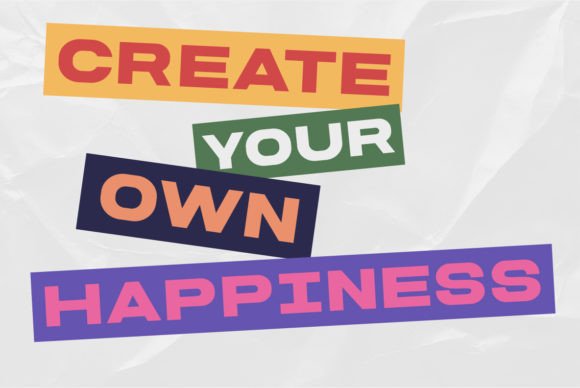
Introducing GRVTRN Font: The Epitome of Modern Sans Serif Design
In the ever-evolving world of typography, the GRVTRN font has emerged as a beacon of contemporary design, perfectly encapsulating the essence of simplicity with a modern edge. This extended sans serif font is not just a typeface; it’s a statement—a bold declaration of minimalist appeal with a wide, thick, and clean aesthetic that is set to dominate the design trends of 2024.
The Design Philosophy Behind GRVTRN
GRVTRN’s design philosophy revolves around the concept of simplicity and modernity. In an era where design trends are increasingly moving towards minimalism, this font stands out by offering a clean and straightforward style that speaks volumes. Its large, wide, and thick letterforms are meticulously crafted to ensure that the font is not only visually appealing but also highly legible across various mediums.
Key Features of GRVTRN Font
- Extended Sans Serif: GRVTRN boasts an extended sans serif design, making it perfect for headlines, titles, and any application where a bold statement is required.
- Clean and Straightforward Style: The font’s clean lines and straightforward style ensure that it can be used in a variety of contexts, from digital interfaces to print materials.
- Large, Wide, and Thick Letterforms: The distinctive letterforms of GRVTRN are designed to grab attention without compromising on elegance.
- High Legibility: Despite its bold appearance, GRVTRN maintains high legibility, making it suitable for use in both body text and headings.
GRVTRN in 2024 Design Trends
The year 2024 is expected to witness a surge in design trends that favor minimalism, sustainability, and digital-first approaches. GRVTRN is perfectly poised to become a leading choice among designers for several reasons:
- Embracing Minimalism: GRVTRN’s minimalist design aligns with the growing trend towards simplicity and away from clutter.
- Versatility: The font’s versatility allows it to be used across a wide range of applications, from web design to advertising.
- Modern Edge: GRVTRN’s modern edge ensures that designs stand out in a crowded digital landscape.
Applications of GRVTRN Font
The GRVTRN font, with its unique blend of boldness and minimalism, finds applications in various fields:
- Digital Media: Ideal for website headers, digital advertising, and social media graphics.
- Print Media: Suitable for magazine headlines, billboards, and any high-impact print materials.
- Branding: Perfect for companies looking to establish a modern and forward-thinking brand image.
How to Use GRVTRN Effectively
To harness the full potential of the GRVTRN font, consider the following tips:
- Pair with Complementary Fonts: GRVTRN pairs well with simpler sans serif or serif fonts for body text, creating a balanced visual hierarchy.
- Experiment with Sizes: Utilize the font’s versatility by experimenting with different sizes to emphasize certain parts of your content.
- Consider Color Contrasts: Ensure that the chosen text color provides sufficient contrast with the background to maintain readability.
GRVTRN is more than just a font; it’s a design statement that encapsulates the essence of modern sans serif typography. Its simplicity, combined with a modern edge, makes it an invaluable tool for designers looking to create impactful and aesthetically pleasing work. As we move through 2024, GRVTRN is set to play a significant role in shaping design trends, offering a versatile and stylish solution for a wide range of applications.